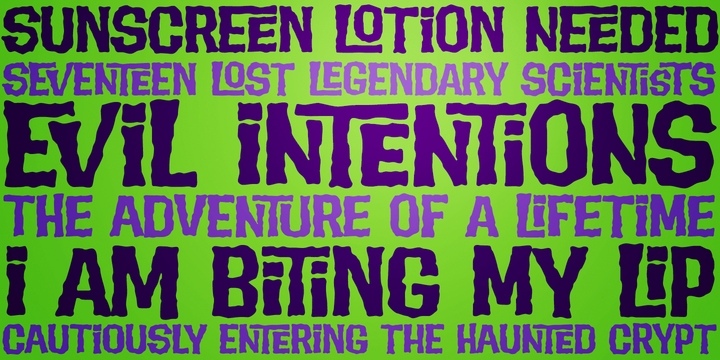
Evil Intentions PB Font
Evil Intentions PB Font is perfect for horror movie posters, dark fantasy book covers, heavy metal band merchandise, gothic gaming interfaces, Halloween event promotions, and sinister themed branding projects. This menacing typeface excels in supernatural fiction publications, dark entertainment venues, occult-themed designs, and any application where malevolent atmosphere and spine-chilling typography create unforgettable horror experiences.
What makes Evil Intentions PB Font so exciting is its masterful ability to channel pure malevolence and dark energy through expertly crafted letterforms. The font features sharp, aggressive edges and ominous character shapes that seem to writhe with supernatural malice. Its intimidating presence immediately establishes a sense of dread and foreboding, making it perfect for projects that need to tap into primal fears and dark fantasies.
Evil Intentions PB Font comes in a diabolic family including Regular, Medium, Bold, Ultra Bold, and Shadow weights. Each style features complete uppercase and lowercase character sets, occult symbols, menacing numerals, and sinister punctuation marks. The font family also includes distressed alternates, blood-dripping effects, and supernatural ligatures that add layers of atmospheric horror to design compositions.
This terrifying typeface transforms ordinary text into powerful instruments of fear and dark storytelling. Evil Intentions PB Font Free Download empowers designers and horror content creators to craft truly spine-tingling visual experiences that haunt viewers long after first encounter. Whether you're developing promotional materials for horror entertainment, creating branding for gothic businesses, or designing covers for dark fiction, this font delivers authentic malevolent impact with professional execution.
The font's dark charisma makes it particularly effective for horror production companies, gothic fashion brands, haunted attractions, and alternative entertainment venues. Its bold legibility ensures that Evil Intentions PB Font remains readable even in atmospheric conditions while maintaining its distinctive threatening character. The font's ability to instantly establish genre and mood makes it an invaluable weapon for any project requiring authentic horror atmosphere and memorable dark typography that truly embodies evil intentions.